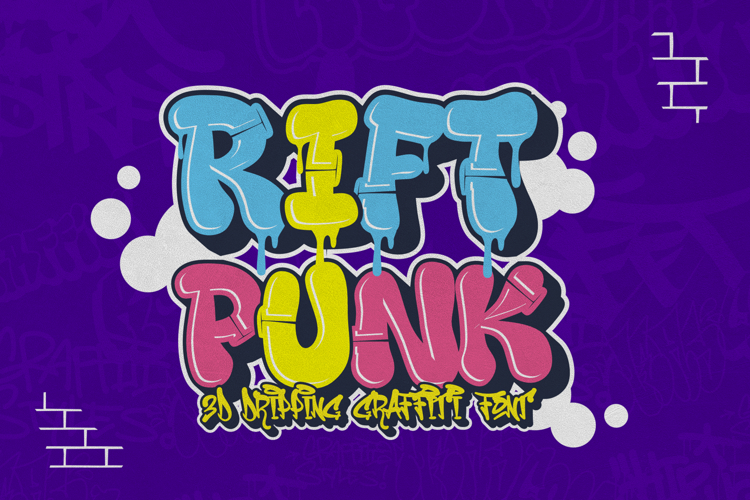
Rift Punk | is a bold 3D Dripping Graffiti Font
Rift Punk is a bold 3D Dripping Graffiti Font that explodes with street attitude and urban chaos. Designed entirely in ALL CAPS, this font offers two high-impact styles: Solid and Dripping, giving you the power to express either clean intensity or raw street energy.
With its gritty 3D style and dripping detail, Rift Punk captures the essence of underground graffiti culture—perfect for poster design, album covers, digital art, game titles, YouTube graphics, or anything that needs to scream with a bold personality.
Key Features:
- All Caps lettering for maximum impact
- Two styles: Solid & Dripping
- Realistic 3D graffiti appearance
- Multilingual support (includes accented characters)
- Ideal for posters, thumbnails, signage, and more
Why Designers Love It: Designers love Rift Punk for its authenticity and edge. Whether used in music promo designs, street festival branding, or digital art projects, this font brings raw emotion and rebellious energy. It’s not just a typeface—it’s a visual punch that grabs attention instantly.
Let Your Designs Shout Loud Rift Punk is more than just typography—it’s a creative weapon. Use it to disrupt the ordinary, dominate your canvas, and channel the power of urban noise into your designs. Speak louder. Design harder. Make your mark.